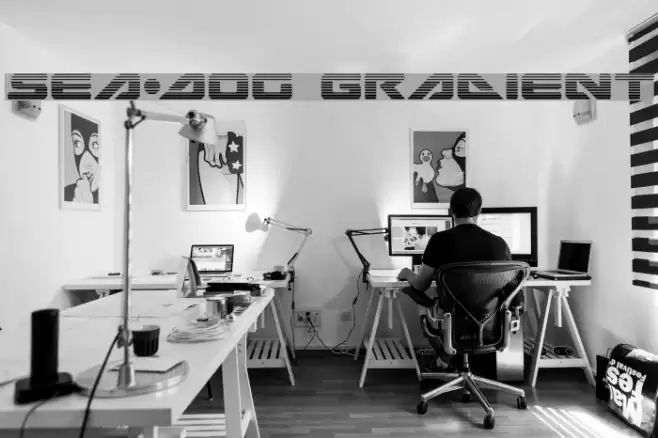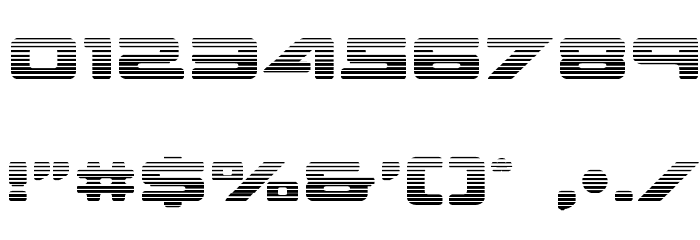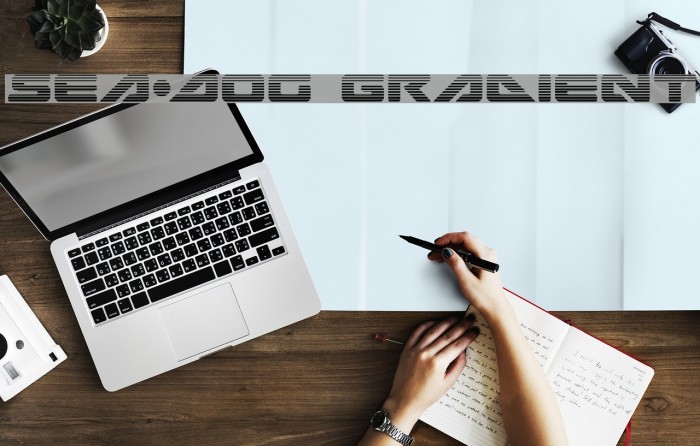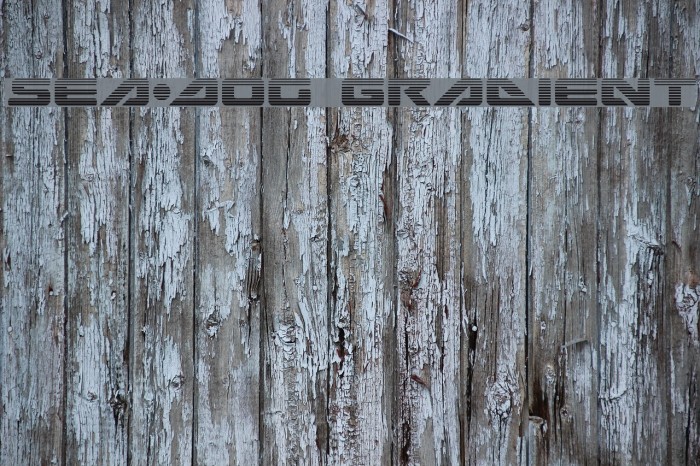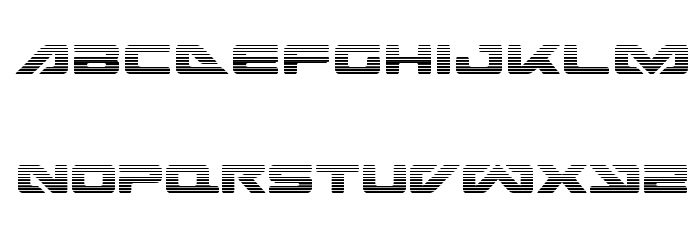
Sea-Dog Gradient Font
Sea-Dog Gradient Description
This font features a unique, futuristic design characterized by horizontal lines that create a gradient effect across each character. The letters are bold and geometric, with sharp angles and a sense of movement. The uppercase and lowercase letters maintain a consistent style, while the numbers and special characters complement the overall aesthetic. The design is eye-catching and modern, making it suitable for projects that require a distinct and innovative look.
A futuristic, gradient-lined font with bold, geometric characters from Uncategorized fonts.
- Proposed Projects: Ideal for technology branding, sci-fi themed projects, video game titles, and modern advertising campaigns.